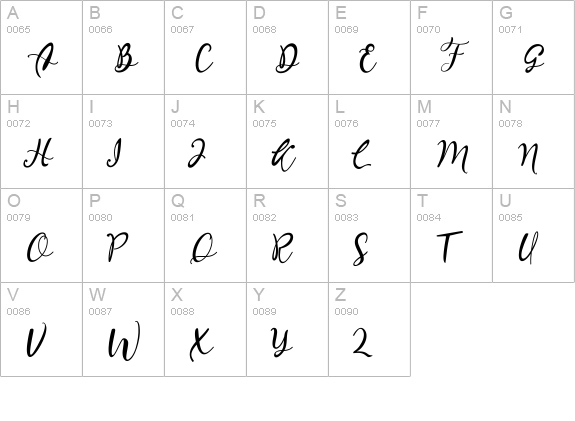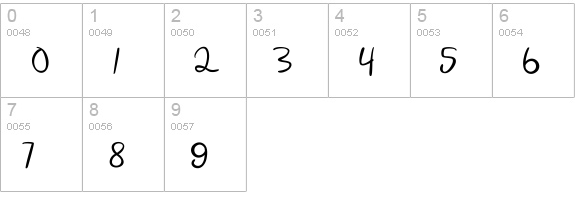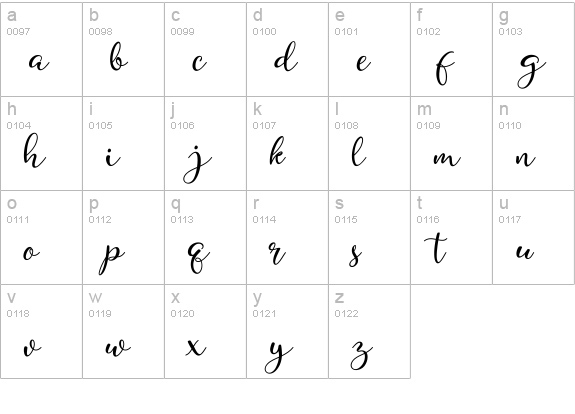
Quiche Font Details
Quiche font is a versatile and elegant typeface that exudes sophistication and charm. With its clean lines and modern design, Quiche font is perfect for a wide range of projects, from branding and packaging to editorial design and advertising. This font is available for free download at FontsMarket.com, making it accessible to designers and creatives looking to add a touch of class to their work. Whether you're working on a sleek corporate identity or a stylish magazine layout, Quiche font is sure to elevate your design with its timeless appeal and effortless flair.